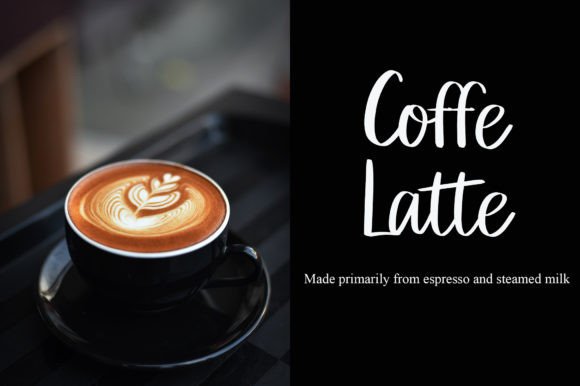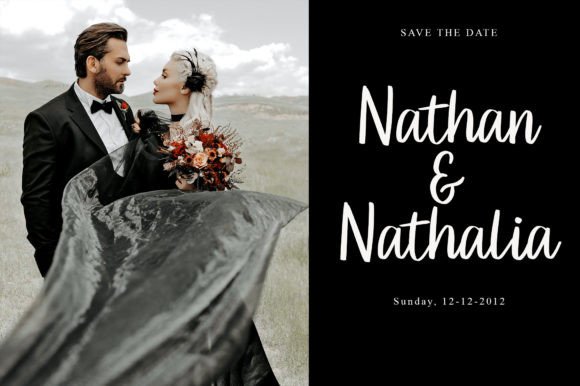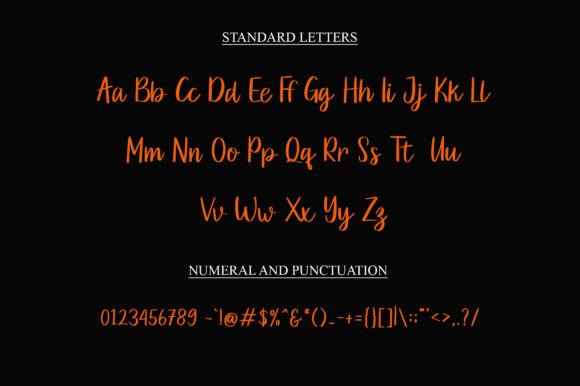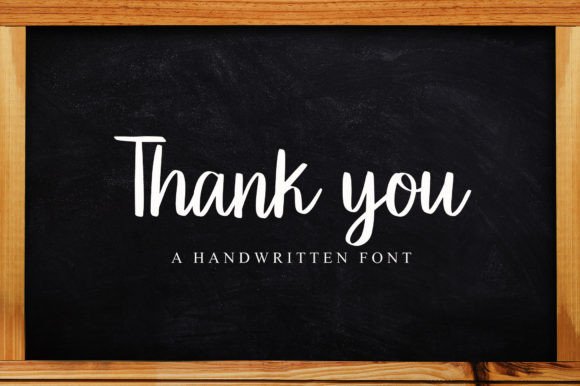
Introducing Digital Paper: A Charming Script Font to Elevate Your Designs
Are you tired of using the same old fonts in your designs? Look no further than Digital Paper, a lovely script font that is sure to add a touch of whimsy and personality to your creative projects. With its charming, playful characters that seem to dance along the baseline, Digital Paper is the perfect addition to any designer’s toolkit.
The Characteristics of Digital Paper
Digital Paper is a script font that boasts a range of delightful features that set it apart from other fonts. Its characters are designed to be highly legible, making it perfect for use in a variety of design applications, from digital crafts to commercial branding. The font’s playful, dancing baseline gives it a sense of movement and energy, adding a touch of whimsy to any design.
Why Designers and Crafters Love Digital Paper
So, why do designers and crafters love Digital Paper? For starters, the font’s unique charm and character make it perfect for adding a personal touch to designs. Whether you’re creating digital art, crafting invitations, or designing branding materials, Digital Paper is sure to make your work stand out. Additionally, the font’s versatility makes it suitable for use in a wide range of design applications, from formal to informal.
How to Use Digital Paper in Your Designs
Tips and Tricks for Getting the Most Out of Digital Paper
To get the most out of Digital Paper, try pairing it with other fonts to create a unique and eye-catching combination. You can also experiment with different colors and textures to add depth and interest to your design. Additionally, consider using Digital Paper in conjunction with graphics and illustrations to create a truly show-stopping design.
The Benefits of Using Digital Paper
So, what are the benefits of using Digital Paper in your designs? For starters, the font’s unique charm and character are sure to make your work stand out. Additionally, Digital Paper is highly legible, making it perfect for use in a variety of design applications. The font is also highly versatile, making it suitable for use in a wide range of design applications, from formal to informal.
Digital Paper: A Font for the Modern Designer
In today’s fast-paced design world, it’s easy to get lost in a sea of sameness. That’s why Digital Paper is such a breath of fresh air. This lovely script font is the perfect way to add a touch of personality and whimsy to your designs, setting you apart from the competition. Whether you’re a seasoned designer or just starting out, Digital Paper is a font that is sure to inspire and delight.
In conclusion, Digital Paper is a charming script font that is sure to elevate your designs to the next level. With its playful, dancing characters and highly legible design, Digital Paper is the perfect addition to any designer’s toolkit. So why wait? Download Digital Paper today and start creating designs that are truly one-of-a-kind.
Key Features of Digital Paper:
• Charming, playful script font
• Dancing baseline gives the font a sense of movement and energy
• Highly legible design makes it perfect for use in a variety of design applications
• Versatile font suitable for use in a wide range of design applications, from formal to informal
• Perfect for adding a personal touch to designs